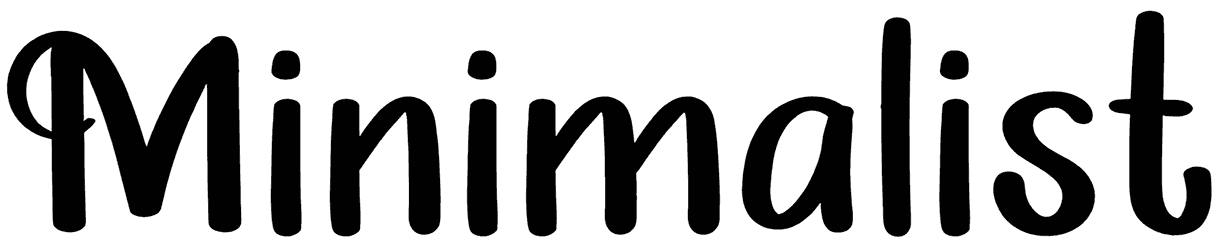
Minimalist Font
Let us introduce a minimal and unique letter design to you for your subsequent layout. Minimalist is a casual handwritten font that has almost full support for characters. For varied designs from postcards or illustrations to logotypes or business cards, Minimalist, with its real and modest for,m is capable of satisfying any taste.
Minimalist is a lovely, neat, and well-balanced handwritten font. Whatever the topic, this font will be a wonderful asset to your font library, as it has the potential to enhance any creation!